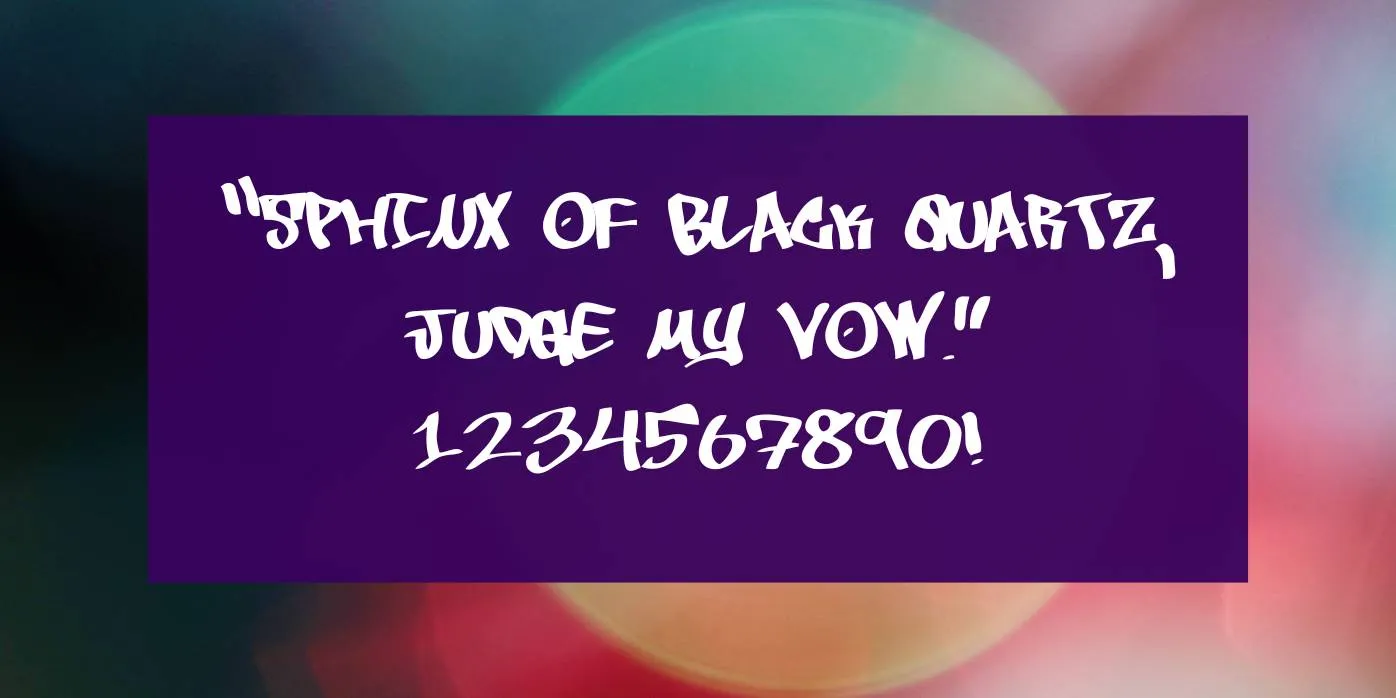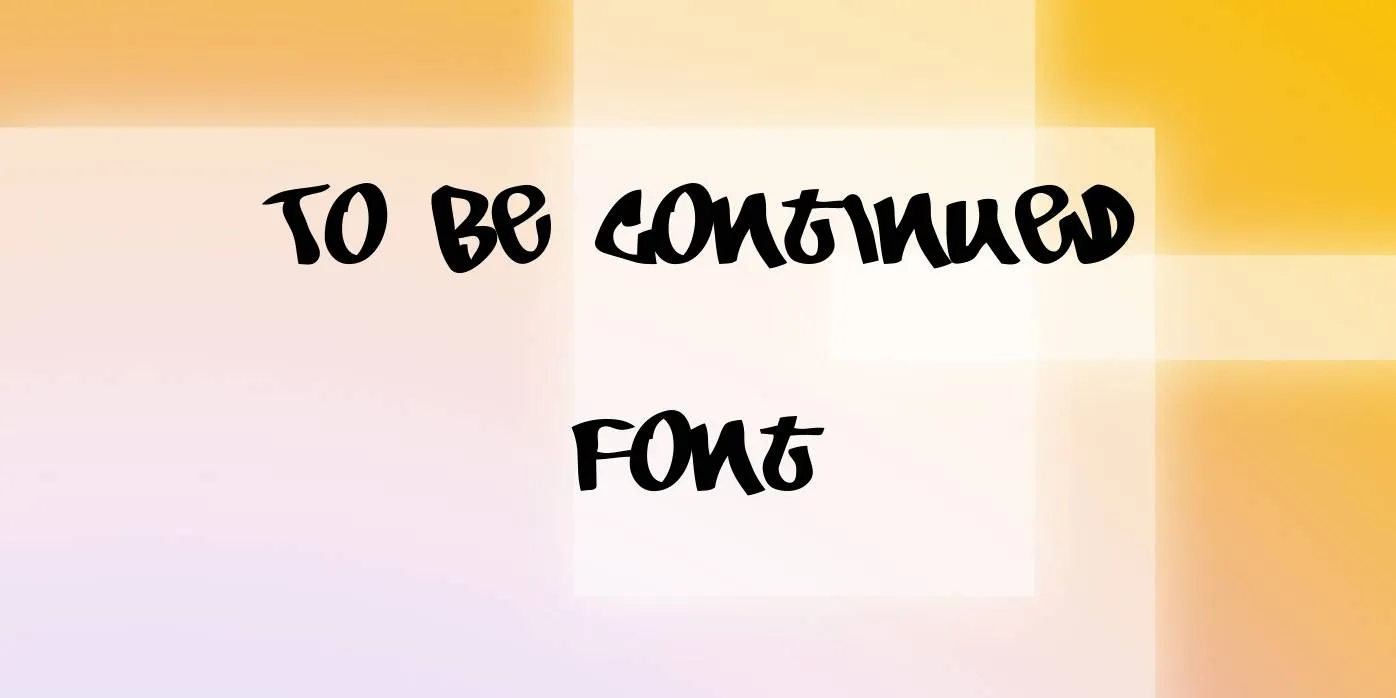
To Be Continued Font
Introducing a fancy font that has amazing, bold, stunning, and crooked characters. To Be Continued Font is designed by Glyphobet Font Foundry. This is the fancy font that is free for both types of projects and designs. If you are interested in using this typeface in your design then you have to download this font.